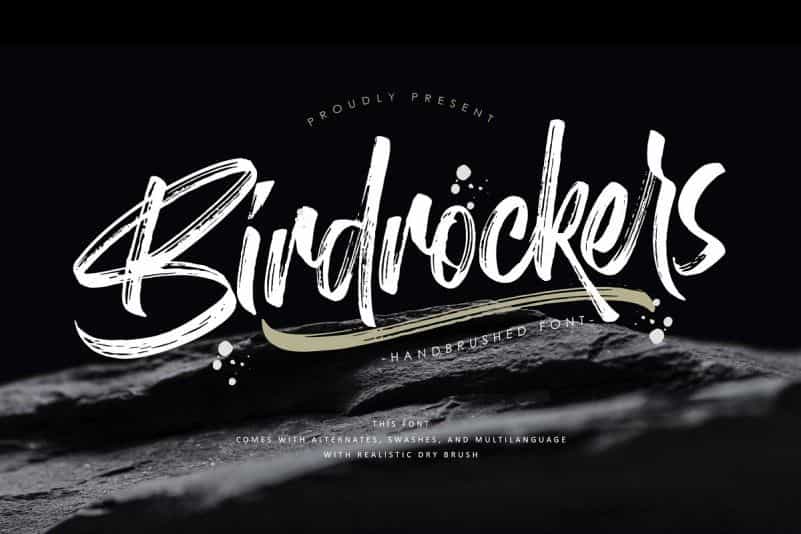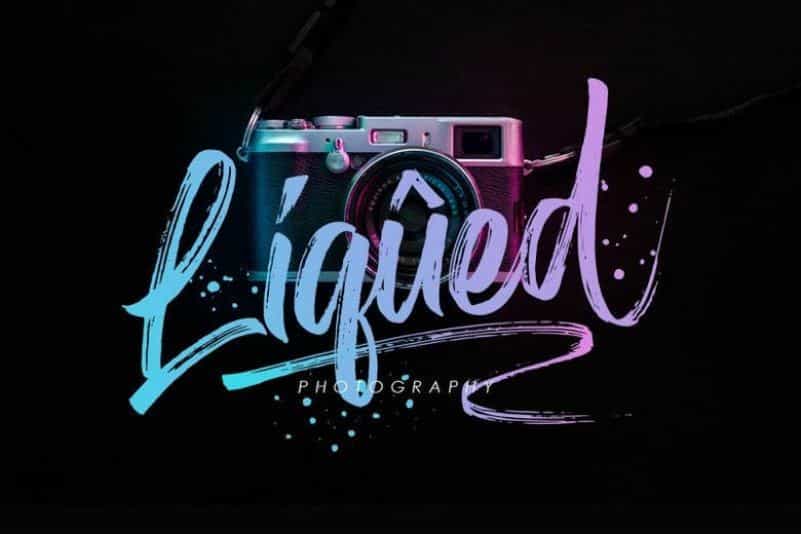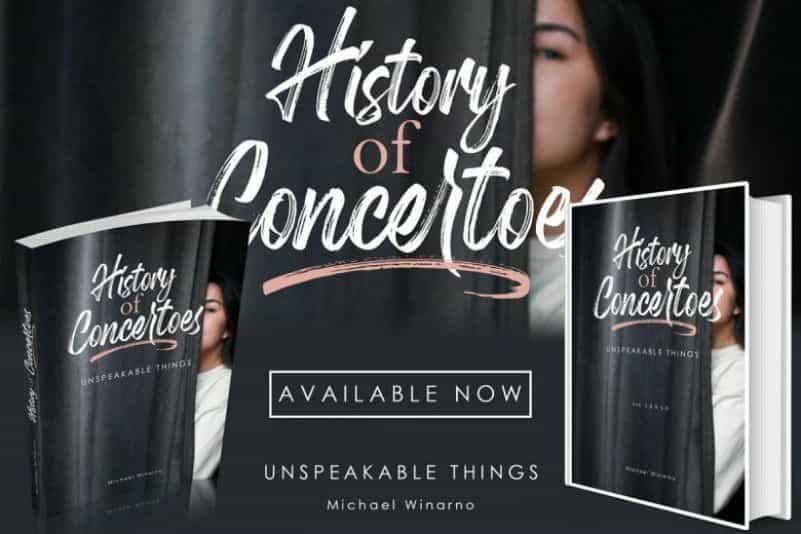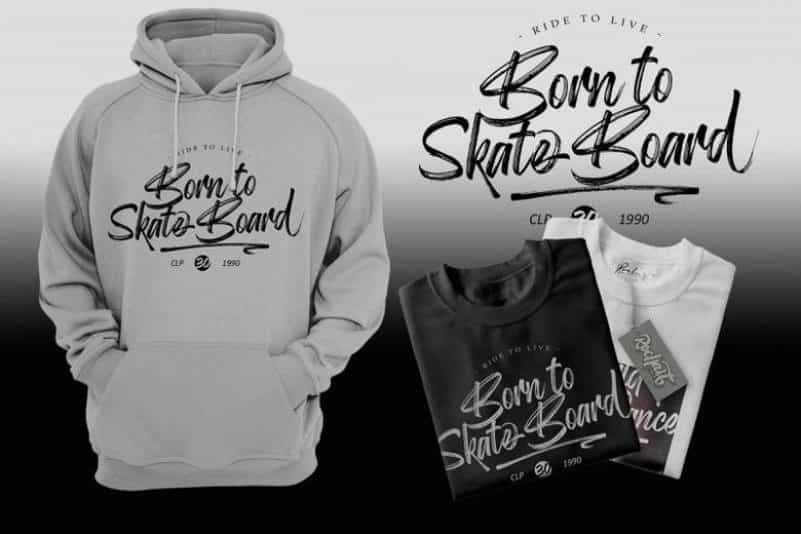
Introducing Birdrockers Brush Font. This is a real hand brushed font, with the authentic natural hand brush and also has some alternates, ligatures and Swashes Extra. The new, trendy, and textured fonts and the Handlettering Style which makes it easier to create a logotype are now available.